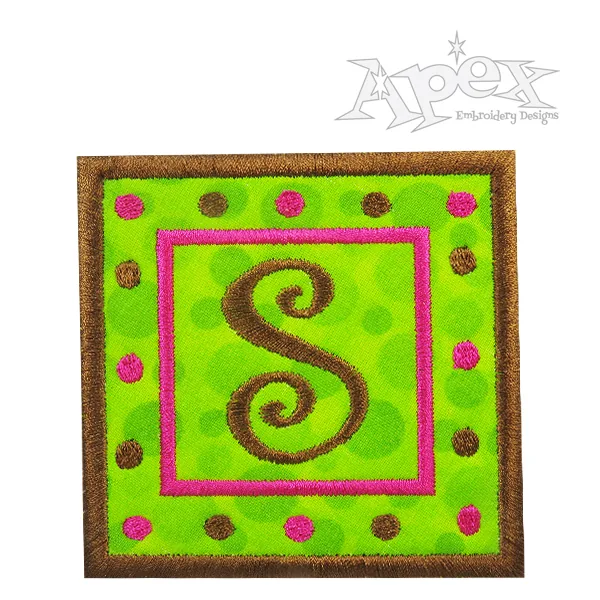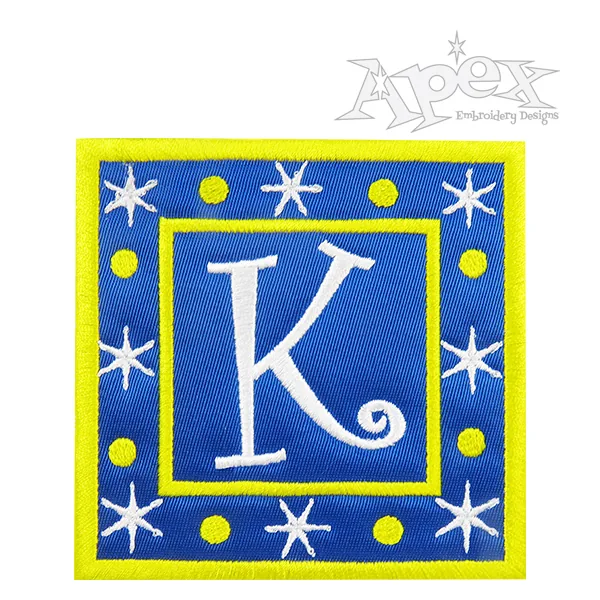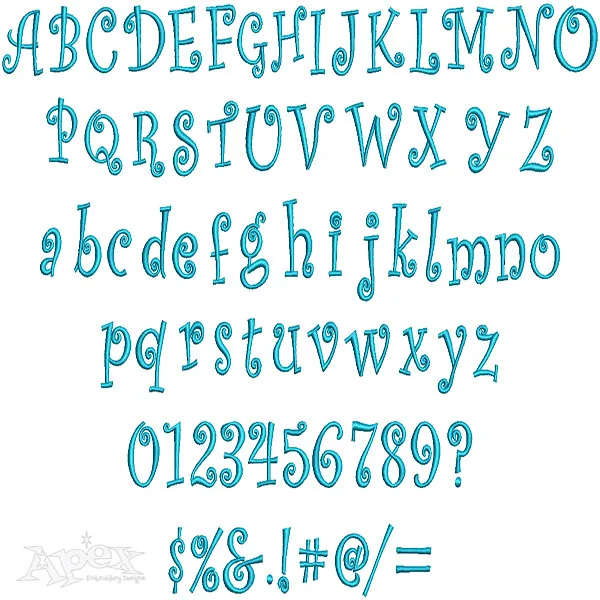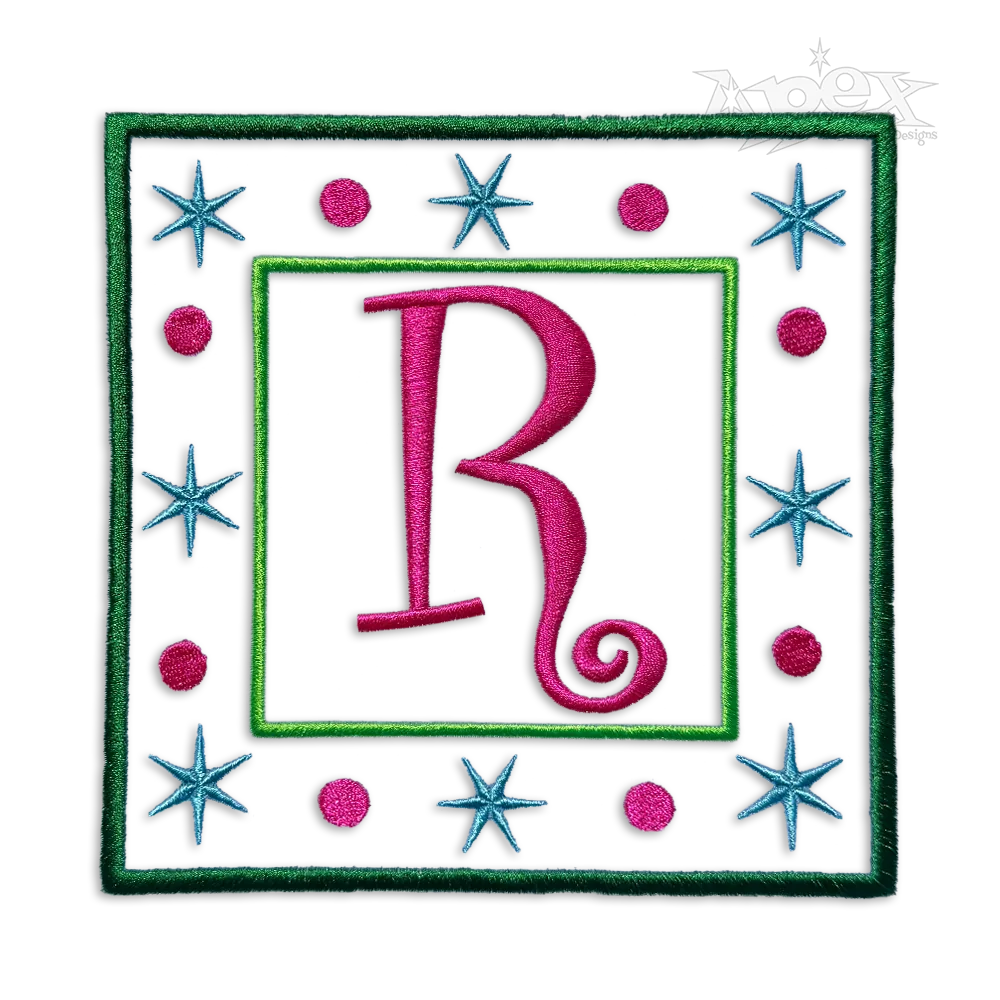
Curlz Embroidery Font with 2 frames
There is an irrepressible joy in the swirl of an energetic curve—a whimsical flourish that captures youthful laughter, sunlit afternoon celebrations, and effortless lighthearted charm. When digitizing our Curlz Embroidery Font collection, our vision was to preserve that buoyant, dancing rhythm while translating every twirl, loop, and playful serif into immaculate, high-luster satin embroidery. Paired with two charming decorative frames engineered specifically to encircle the letters, this expansive suite of over 200 designs breathes cheerful personality and artisan craftsmanship into personalized gifts, everyday textiles, and heirloom keepsakes.
Project Ideas for Curlz Embroidery Font
- Frame-and-Letter Assembling: When composing single-letter monograms, float your uppercase letter in the optical center of the chosen frame—balancing the flourish of the curls against the frame’s perimeter before stitching.
Curlz Embroidery Font Craft & Letterform Details
Digitizing a font as animated as Curlz demands extraordinary technical finesse beneath its carefree exterior. Every stroke features thoughtfully sculpted underlay to anchor shifting fabrics, ensuring that circular finials and energetic loops stitch out with plump, rounded fullness rather than hollow centers. Satin stitch angles travel organically along the curves, rotating seamlessly around tight turns to maintain a fluid, light-catching sheen. Furthermore, dedicated pull-compensation algorithms prevent the slender stems from thinning out or curling inward during execution. The coordinating frames are balanced with identical stitch weights, resulting in a cohesive, polished composition where font and flourish speak the exact same artisanal design language.